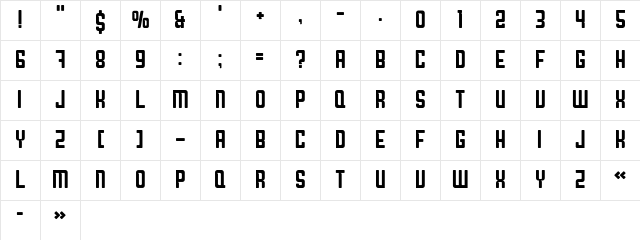
Downtown Regular
Foundry: Nelson Fraga & Roman Tunik
Designer: Nelson Fraga & Roman Tunik
Design Context for Downtown
Downtown is a composed and adaptable typeface that performs quietly and consistently across a wide range of design contexts.